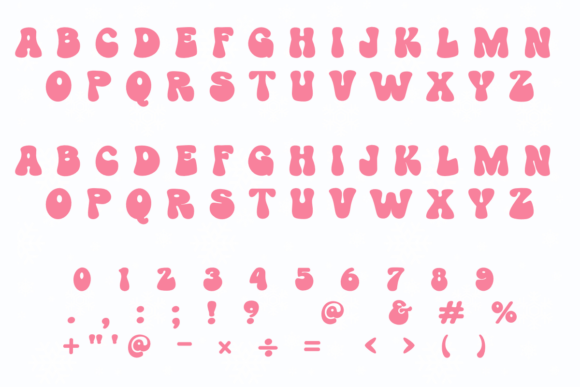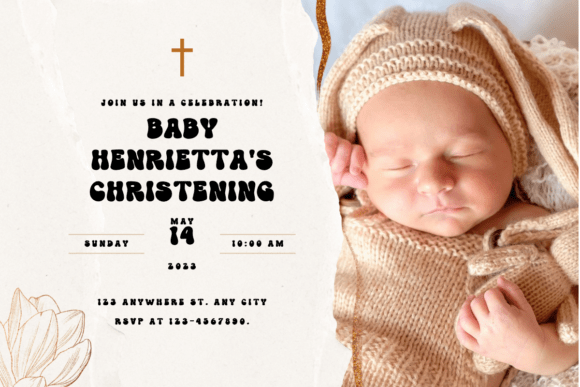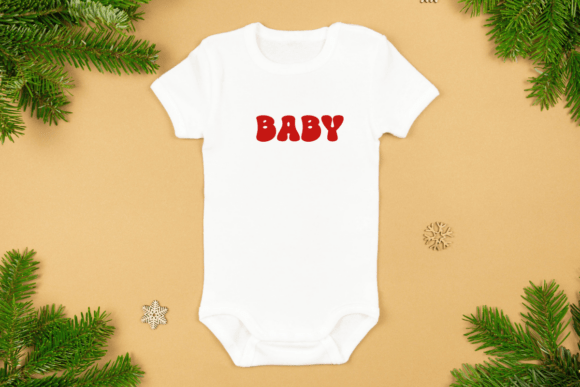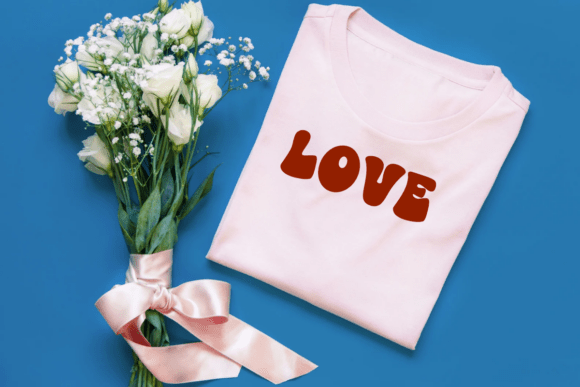
Cute Baby Font: The Ultimate Choice for Designers and Crafters
Are you looking for a font that can add a touch of sweetness and innocence to your designs? Look no further than the Cute Baby Font! This soft and bubbly display font is designed to melt hearts with its plump, rounded shapes and playful charm. In this article, we’ll explore the features and benefits of the Cute Baby Font, and how it can be used to create adorable designs for baby shower invites, children’s products, nursery decor, and more.
The Characteristics of Cute Baby Font
The Cute Baby Font is a display font that boasts a unique and distinctive style. Its plump, rounded shapes give it a soft and cuddly appearance, while its playful charm makes it perfect for designs that require a touch of whimsy. The font’s fun and bubbly vibe makes it ideal for designs that need to appeal to a young audience, or for projects that require a dose of cuteness.
Uses for Cute Baby Font
The Cute Baby Font is a versatile font that can be used for a wide range of design projects. Some of the most popular uses for this font include:
- Baby shower invites: Add a touch of sweetness and innocence to your baby shower invitations with the Cute Baby Font.
- Children’s products: Use the Cute Baby Font to create adorable packaging and branding for children’s products, such as toys, clothes, and nursery decor.
- Nursery decor: Create cute and playful nursery decor with the Cute Baby Font, including wall art, mobiles, and other decorative items.
- Stationery and crafts: Use the Cute Baby Font to add a touch of whimsy to your stationery and craft projects, such as handmade cards, gift tags, and scrapbooking pages.
Benefits of Using Cute Baby Font
The Cute Baby Font offers a range of benefits for designers and crafters, including:
- Easy to read: The Cute Baby Font is clear and easy to read, making it perfect for designs that require a high level of legibility.
- Highly versatile: The Cute Baby Font can be used for a wide range of design projects, from baby shower invites to children’s products and nursery decor.
- Unique and distinctive: The Cute Baby Font has a unique and distinctive style that sets it apart from other fonts.
- Fun and playful: The Cute Baby Font adds a touch of fun and playfulness to any design, making it perfect for projects that require a dose of whimsy.
Tips for Using Cute Baby Font
Here are some tips for using the Cute Baby Font in your designs:
- Use it sparingly: The Cute Baby Font is a display font, so it’s best to use it sparingly to add emphasis and interest to your designs.
- Pair it with other fonts: The Cute Baby Font pairs well with other fonts, such as sans-serif fonts and script fonts.
- Experiment with colors: The Cute Baby Font looks great in a range of colors, from bright and bold to soft and pastel.
- Have fun: The Cute Baby Font is all about having fun and adding a touch of whimsy to your designs, so don’t be afraid to get creative and experiment with different styles and ideas.
The Cute Baby Font is a versatile and adorable font that’s perfect for designers and crafters who want to add a touch of sweetness and innocence to their designs. With its plump, rounded shapes and playful charm, this font is sure to melt hearts and bring a smile to your face. Whether you’re creating baby shower invites, children’s products, nursery decor, or anything else that requires a dose of cuteness, the Cute Baby Font is the ultimate choice.